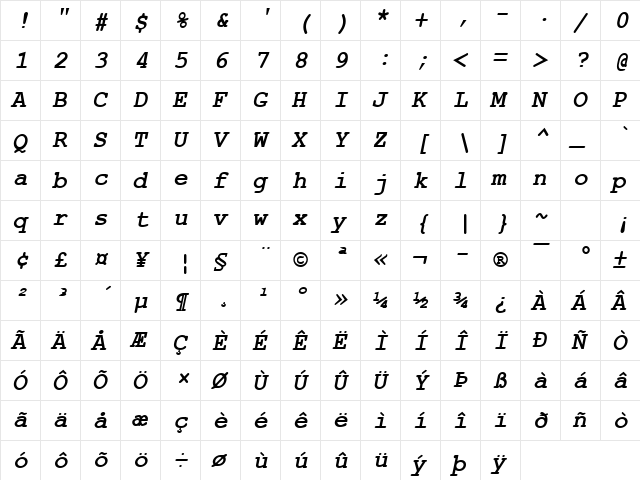
Bear 2 Bold Italic
Design Context for Bear 2 Typeface
Bear 2 is a composed and adaptable typeface that performs quietly and consistently across a wide range of design contexts. The dynamic lean of this cut emphasises speed and emphasis in any layout. Its bold stroke weight gives it real presence on the page.
Pro Tip: Try Bear 2 for annotation and caption copy alongside an upright companion — the contrast in angle creates a dynamic but ordered typographic system.